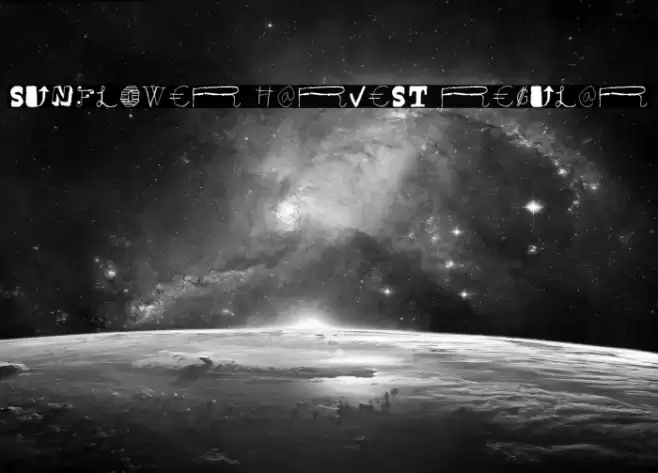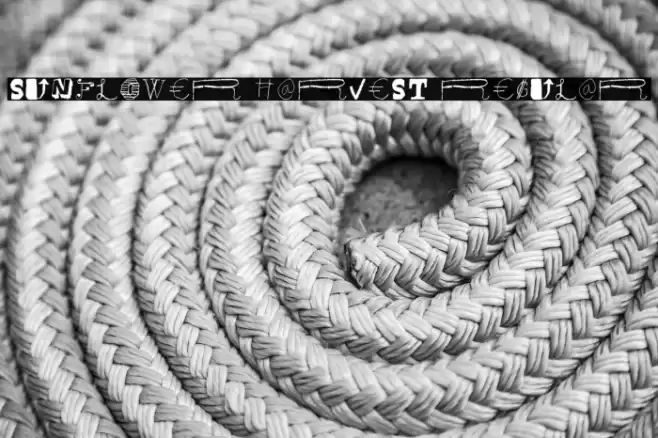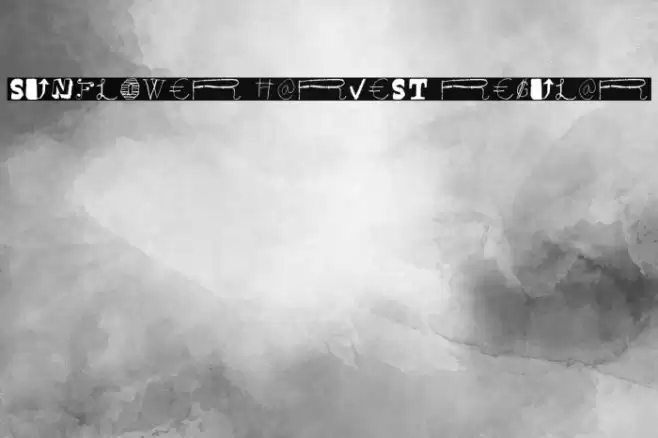
Sunflower Harvest Regular Font
Sunflower Harvest Regular Description
This font exhibits a highly decorative and eclectic style, combining elements of both modern and vintage aesthetics. Each character is uniquely designed with varying thicknesses and artistic embellishments, creating a playful and whimsical appearance. The uppercase letters feature bold and intricate designs, while the lowercase letters maintain a more delicate and flowing style. Numbers and special characters continue the theme with creative and unexpected forms, making this font ideal for artistic and eye-catching designs.
A decorative and eclectic font with playful, artistic character designs from Decorative fonts.
- Proposed Projects: Ideal for creative projects such as posters, album covers, artistic branding, and unique invitations.